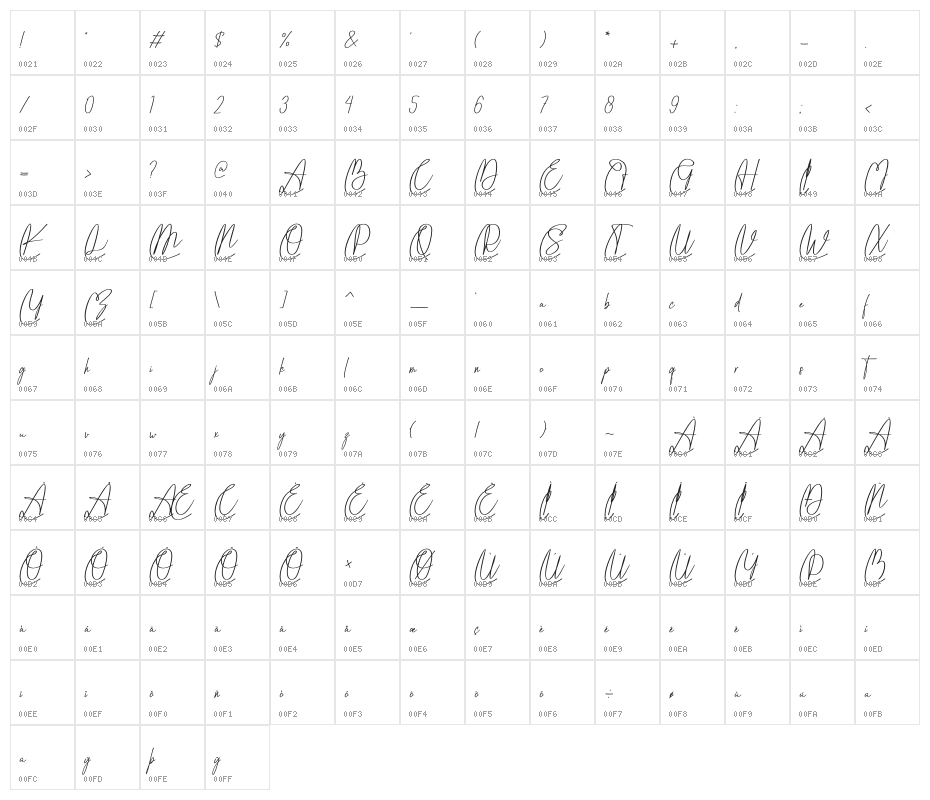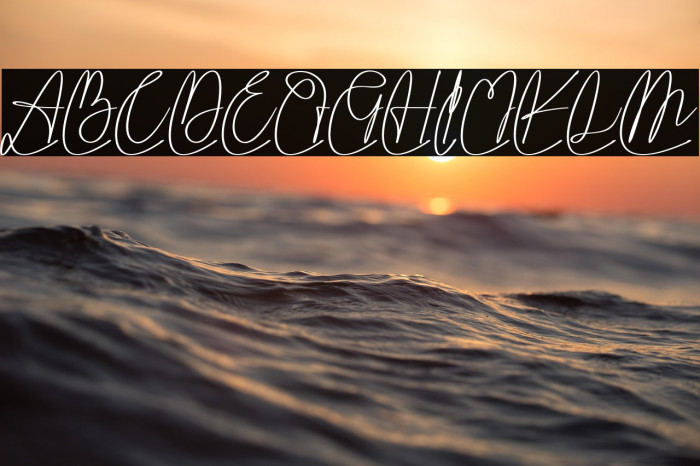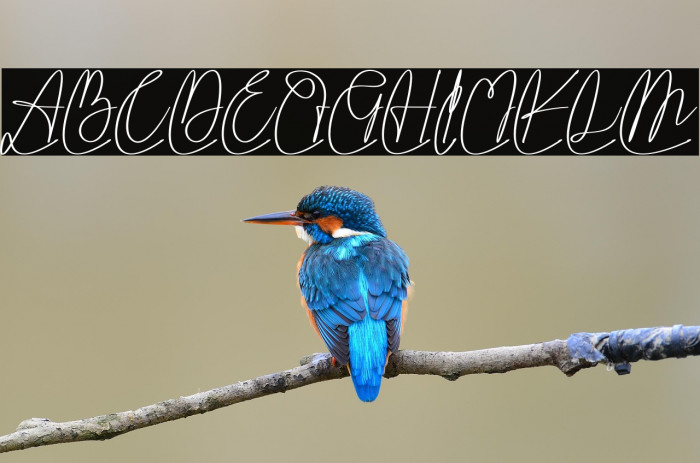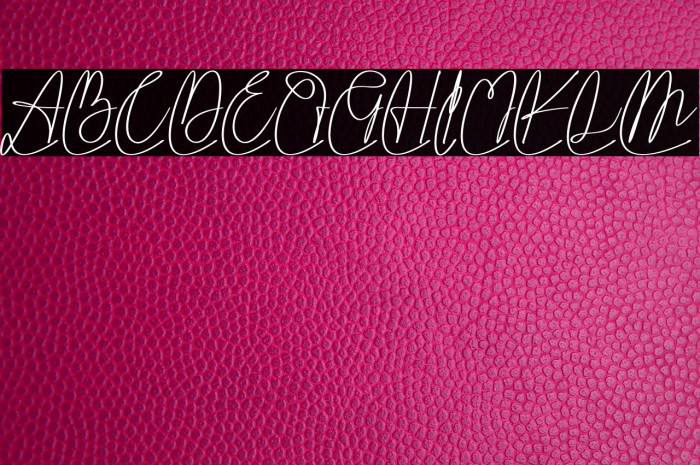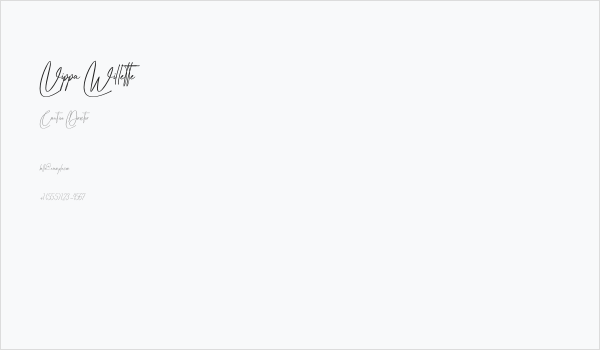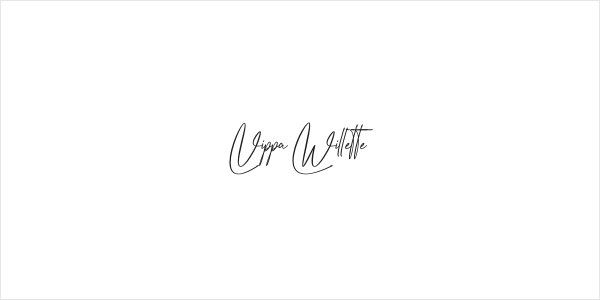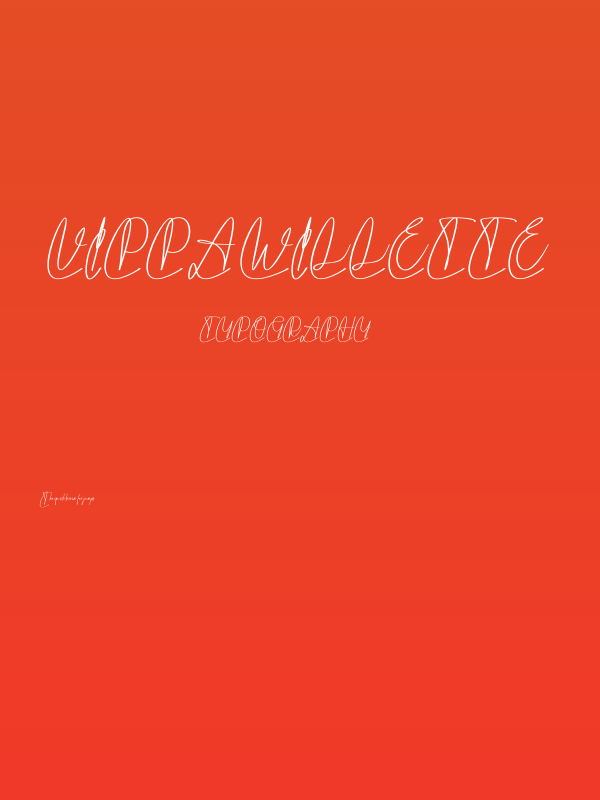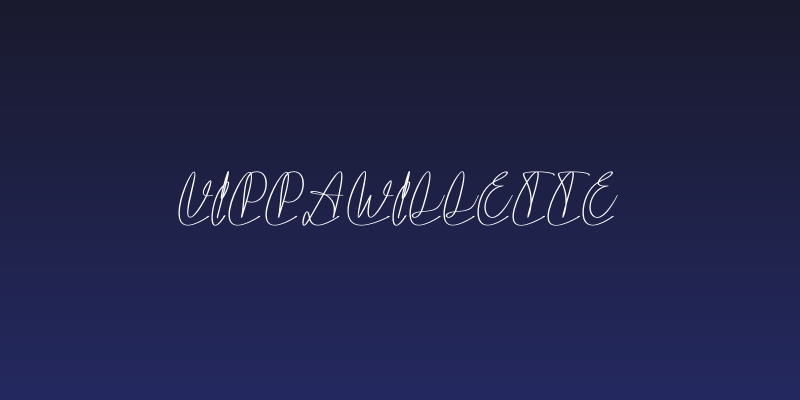
Vippa Willette Font
Vippa Willette Description
This font exhibits a flowing, cursive style with elegant loops and swashes, giving it a sophisticated and artistic appearance. The uppercase letters are particularly ornate, featuring exaggerated curves and flourishes that add a sense of movement and grace. The lowercase letters maintain a consistent style, with smooth connections between characters that enhance readability while preserving the decorative nature. The numerals and special characters are designed to match the overall aesthetic, offering a cohesive look across all glyphs. This font is ideal for projects that require a touch of elegance and creativity.